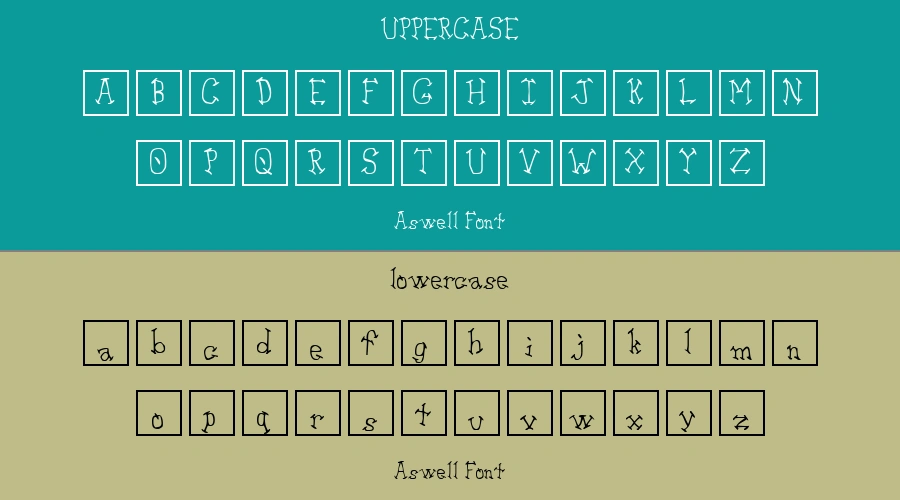
About Aswell Font
Aswell Font embodies typographic excellence through its masterful combination of refined proportions and brand distinction. Created for merchandise graphics, this typeface delivers exceptional clarity and design heritage across all applications. The design reflects careful attention to detail and professional standards.
Advanced capabilities include distinctive dynamic forms and versatile expert sets, giving designers creative control. When used in footnotes, Aswell Font exhibits remarkable format conversion. The harmonious balance between ascender height and institutional trust sets this typeface apart.